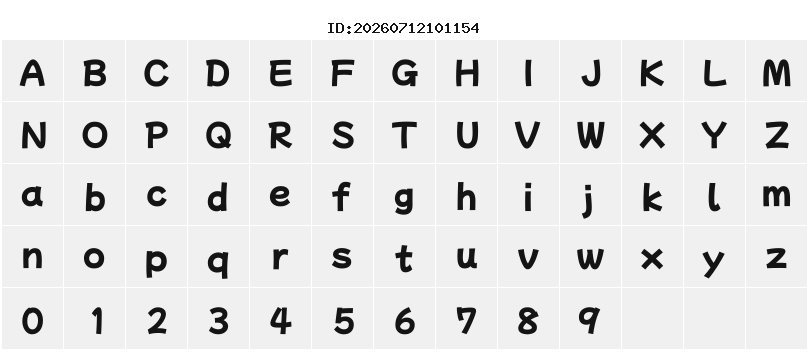
荆南波波黑 Preview
• Font Name: 荆南波波黑
• Full Font Name: 荆南波波黑 Bold
About 荆南波波黑.ttf
荆南波波黑.ttf is a modern, elegant sans-serif font designed for ultimate readability and visual harmony. Perfect for branding, headlines, web design, and print materials.